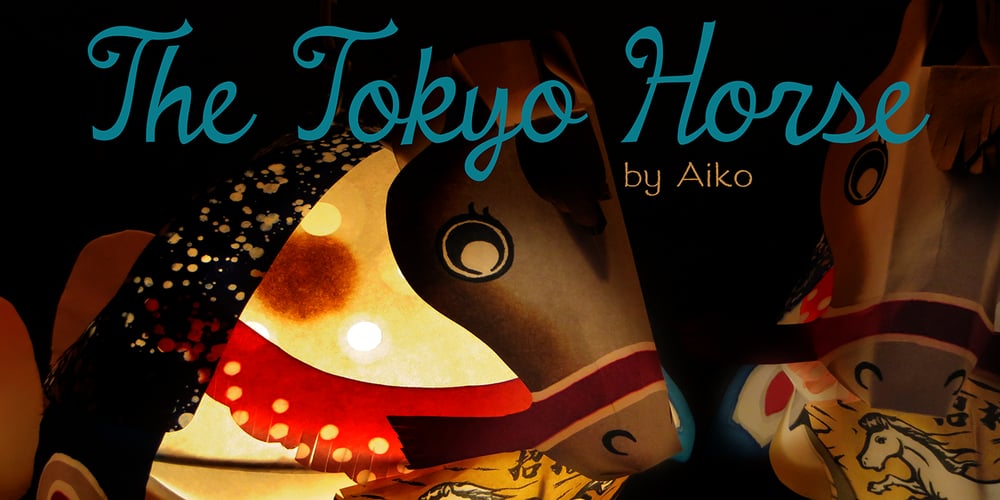
Steamboat
Steamboat font
Steamboat Font Family was designed by Amy Dietrich and published by Atlantic Fonts. Steamboat contains 1 styles and family package options. Steamboat is ready to embark on the next great adventure. Steamboat’s ribbony script has a vintage vibe, but is eager to put a playful twist on whatever comes its way.